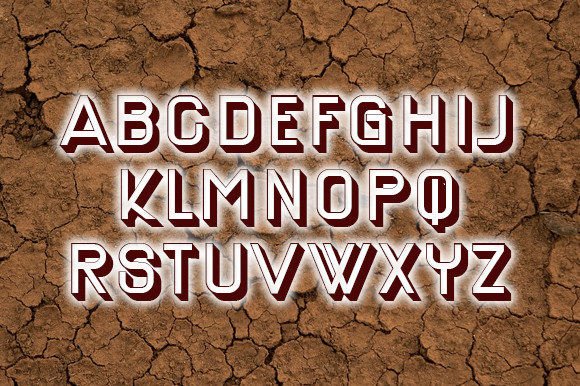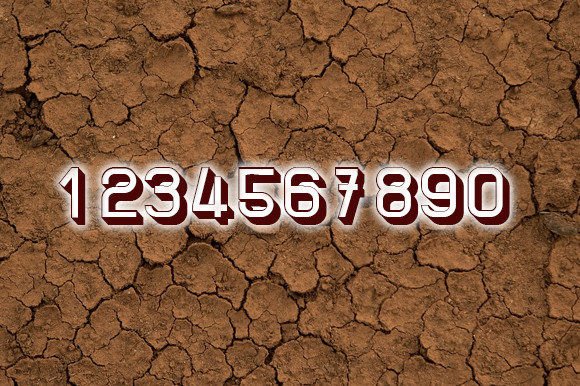
Introduction to Schlamm Font
Have you ever stared at a blank canvas, eager to bring a design to life, but struggling to find the perfect font to match your vision? That’s exactly what happened to me last week while working on a project, and I’m glad I stumbled upon the amazing Schlamm Font. This versatile 3D typeface is a game-changer for designers, offering endless possibilities for creative projects.
Whether you’re designing posters, flyers, or social media graphics, the Schlamm Font is sure to elevate your work. Its high-quality design makes it perfect for book and movie titles, while its transparent background feature allows for seamless integration with any background image or color scheme. And the best part? It’s available for free download, making it an invaluable design resource for any project.
Key Features of Schlamm Font
- High-quality design: This font features a unique, hand-drawn design that adds a touch of elegance to any project.
- Transparent background: The Schlamm Font includes a transparent background, allowing designers to easily layer it over other design elements.
- Resolution: The font is designed to be high-resolution, ensuring that it looks great on both small and large scales.
- Size: Schlamm Font is available in a single weight, making it easy to use in a variety of design contexts.
- Perfect for creative projects: The Schlamm Font is ideal for use in creative projects, such as graphic design, digital art, and more.
Honest Review: Schlamm Font
I recently had the chance to work with the Schlamm Font, and I have to say, it’s a unique addition to any design project. The Schlamm Font is available for free download, making it an excellent resource for designers looking to add some flair to their work without breaking the bank.
One of the things that works well with the Schlamm Font is its high quality. The font is crisp and clean, making it perfect for both digital and print designs. It’s also incredibly versatile, allowing designers to use it for a wide range of creative projects.
Some of the key features of the Schlamm Font include:
- ✨ High-quality design that’s perfect for digital and print projects
- ✨ Transparent background, making it easy to work with on any background
While the Schlamm Font is a great addition to any design resource, there are a few limitations to be aware of:
- ⚠️ Limited character set, which may limit its use in certain projects
- ⚠️ Not ideal for use in small font sizes, as it can become difficult to read
Overall, I was impressed with the Schlamm Font and would definitely consider using it in future design projects. Its high quality and versatility make it a great addition to any design resource.
Getting the Most Out of Schlamm Font
To get the most out of Schlamm Font, use it on a transparent background to create a stunning visual effect. This font is perfect for creating eye-catching headlines or titles for your design project. Experiment with different font sizes and colors to enhance the visual impact.
Schlamm Font is commonly used in creative projects that require a unique and stylish font. It’s perfect for:
- Marketing materials, such as brochures and flyers.
- Branding and logo design.
- Graphic design projects, such as posters and infographics.
High-Quality Design Resource
Schlamm Font is a high-quality design resource that offers a unique and stylish font option for your creative project. With its transparent background and free download, it’s a valuable asset for designers and non-designers alike.
Alternatives to Schlamm Font
1. Lobster Font